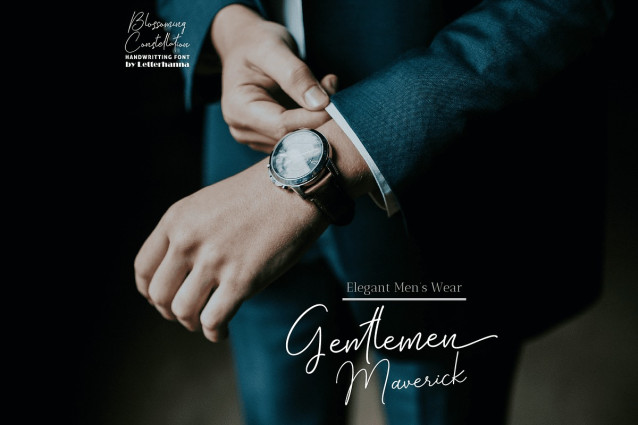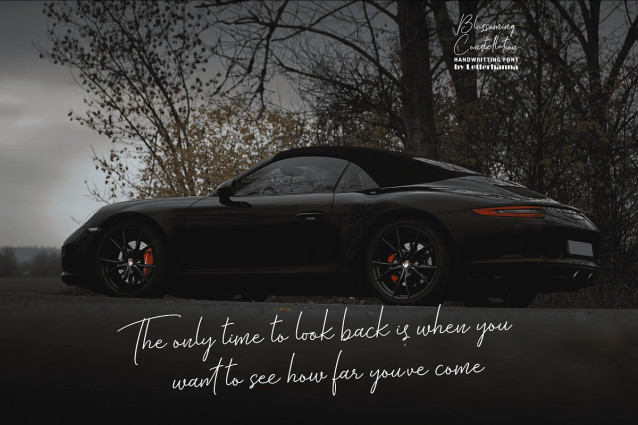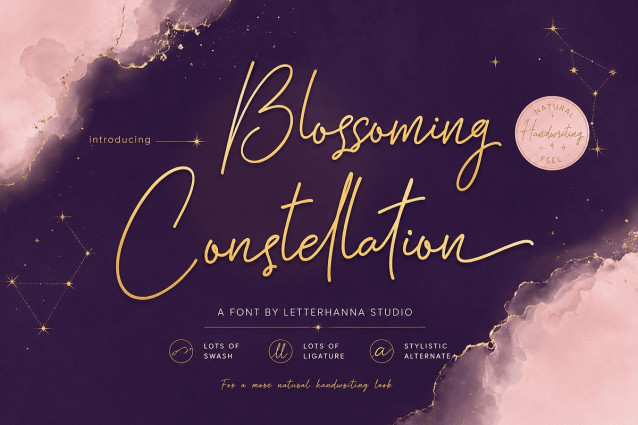
Blossoming Constellation Font
Blossoming Constellation Font a free-spirited handwritten font that gracefully weaves the celestial allure of constellations with the untamed beauty of blossoming flowers. Each letter in this font carries the essence of a wandering spirit, capturing the whimsy and wonder of the universe. With its flowing lines and delicate details, “Blossoming Constellation” invites you to express your creativity with the boundless freedom of a free spirit. Whether used for artistic projects, personal messages, or branding, let this font guide your imagination on a journey where every stroke is a testament to the limitless possibilities of creativity and self-expression.
Blossoming Constellation Font was created to look as close to a natural handwritten script as possible by including over 50 natural-looking opentype ligatures, Uppercase and lowercase Stylistic Alternate, a lot of head/beginning swashes and tail/ending swashes. There are also 30 underline swashes included and lot more ornaments, arrow, scribbles, etc.